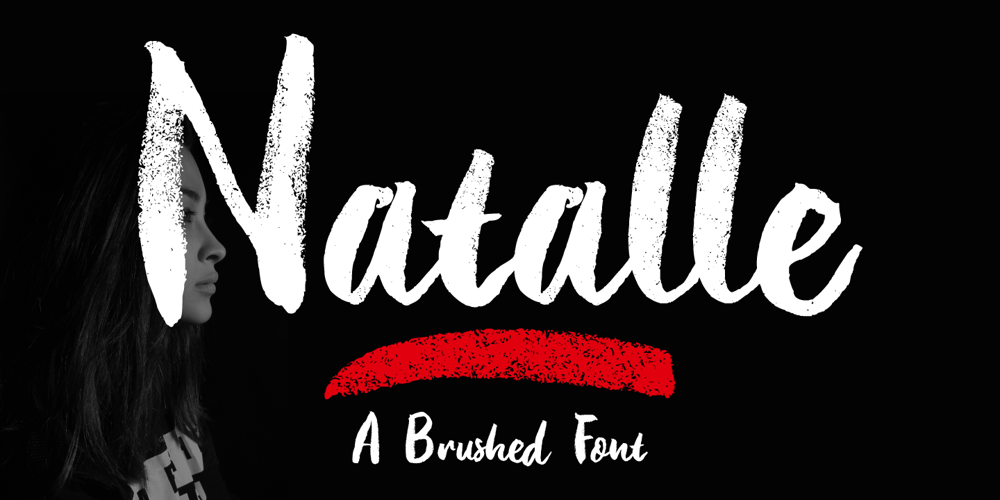
Natalle Font Family was designed by Fajriadi and published by Masinong Studio. Natalle contains 2 styles and family package options. Natalle Brush is a handmade brushed signature font font with stunning characters. Ideal for logos, name tag, handwritten quotes, product packaging, merchandise, social media & greeting cards. It contains a full set of lower & uppercase letters, a large range of punctuation, numerals, and Multi-Lingual support.The font also contains several alternatives for lowercase characters, accessible in the Adobe Illustrator Glyphs panel, or under Stylistic Alternates in the Adobe Photoshop OpenType menu. But If you don’t have any OpenType specific software, you can still use Natalle as is with its standard lowercase and uppercase letters.Natalle Brush comes with Regular and Underlines style.If you have any question, don’t hesitate to contact me by email masinong.studio@gmail.comThank you!